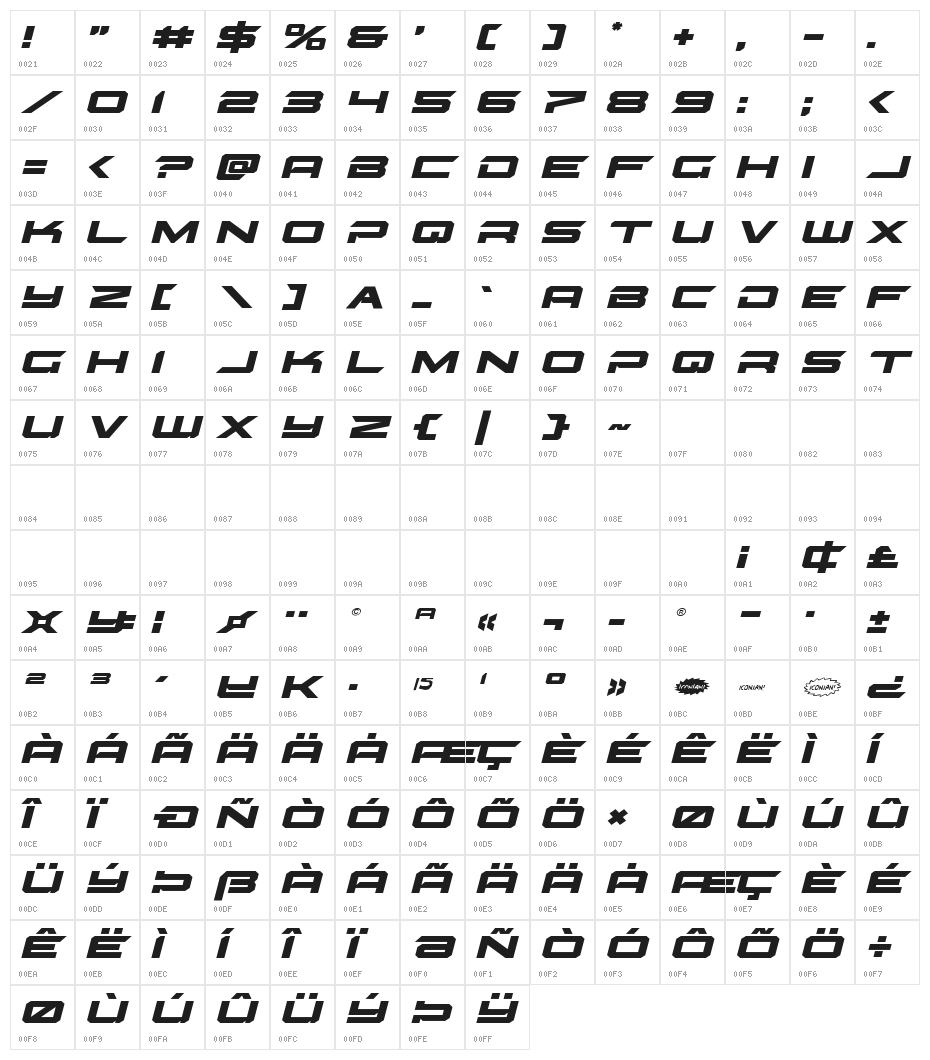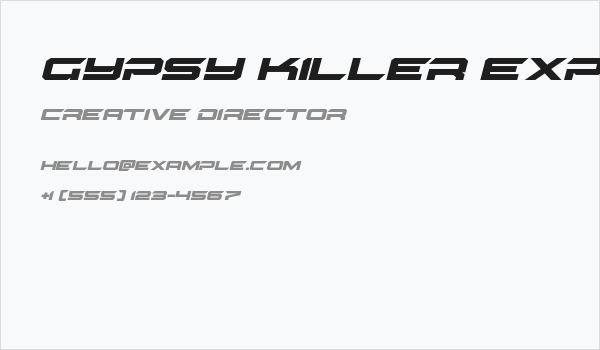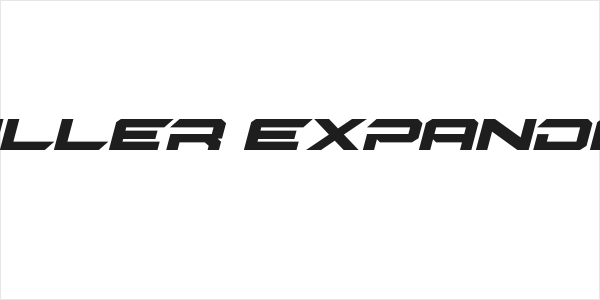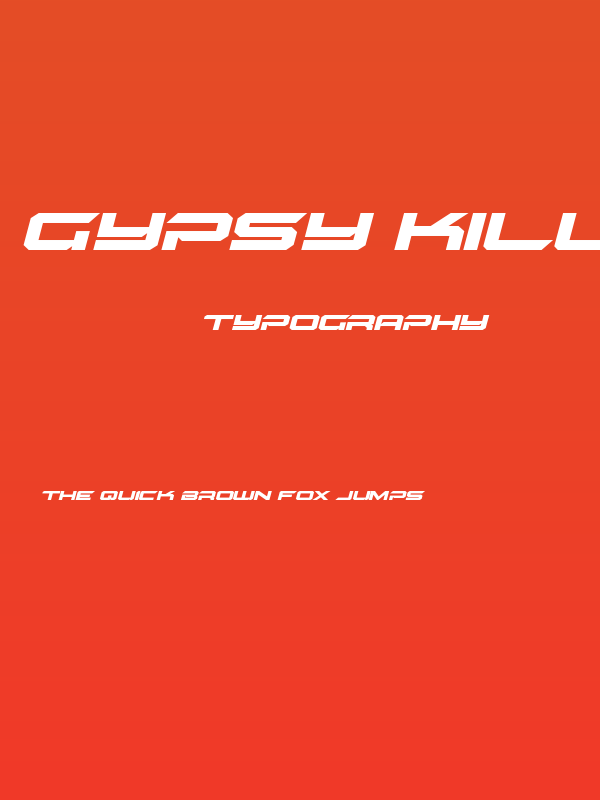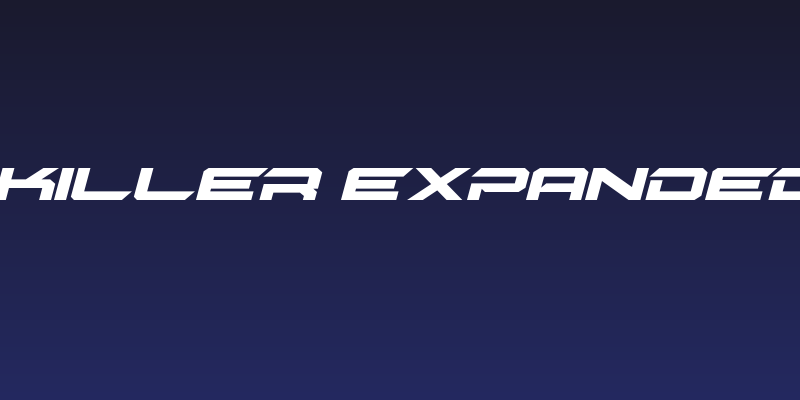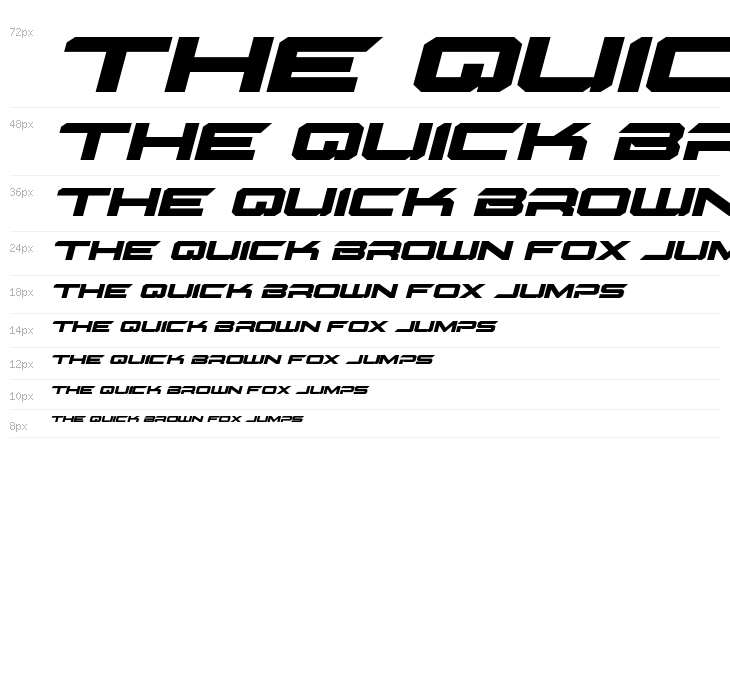
Gypsy Killer Expanded Italic Font
Gypsy Killer Expanded Italic Description
This font features a bold and dynamic design with an italicized slant, giving it a sense of motion and energy. The characters are expanded, providing a wide stance that enhances readability while maintaining a futuristic and edgy appearance. The angular cuts and sharp edges contribute to its modern aesthetic, making it suitable for attention-grabbing designs. The font includes a full set of uppercase and lowercase letters, numerals, and a variety of special characters, ensuring versatility in usage.
| Proposed Projects | Ideal for projects requiring a modern and energetic look, such as sports branding, tech-related designs, video game titles, and dynamic posters. |